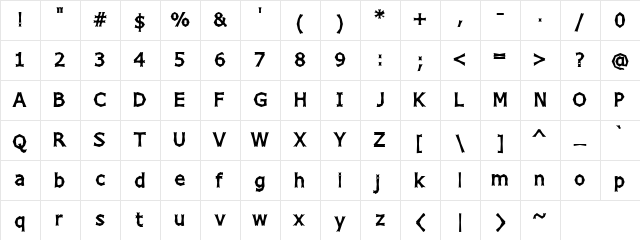
Kenny Samps Regular
Design Context for Kenny Samps Typeface
Kenny Samps takes a measured approach to typography — its balanced proportions and neutral character make it a reliable workhorse for both digital and print work.